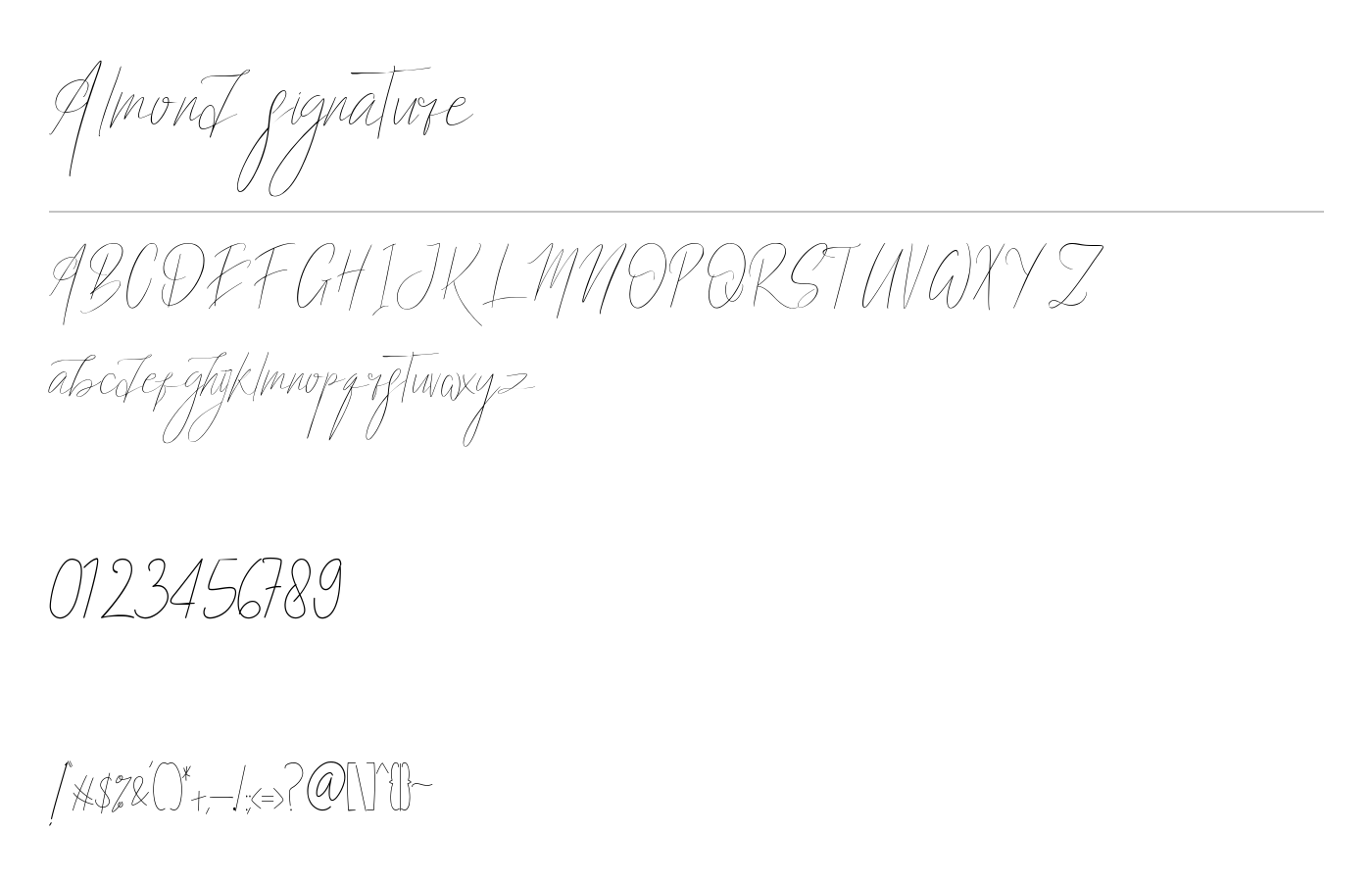
Almond Signature is a delicate and elegant handwritten script font with tall, slender letterforms and fine, flowing strokes that mimic natural calligraphy. Its light weight and airy design make it perfect for sophisticated branding, invitations, and signature-style logos, conveying a sense of refinement and personal touch. This font works especially well where a graceful, stylish, and intimate feel is desired.
Almond signature Font
About Almond signature Font
| Font family | Almond signature Font |
| Designer | Nomlimofont |